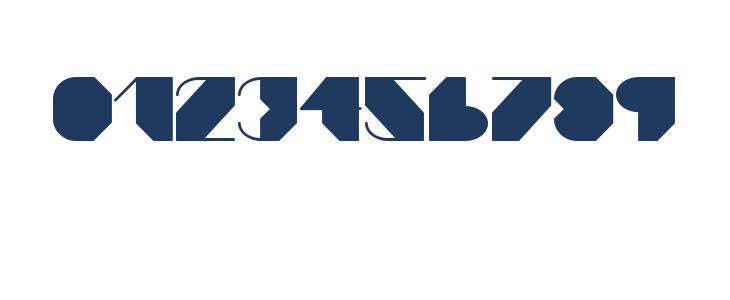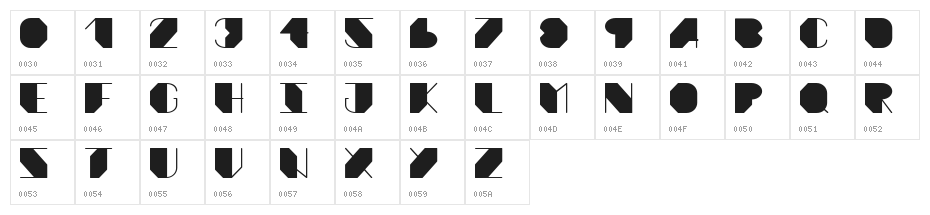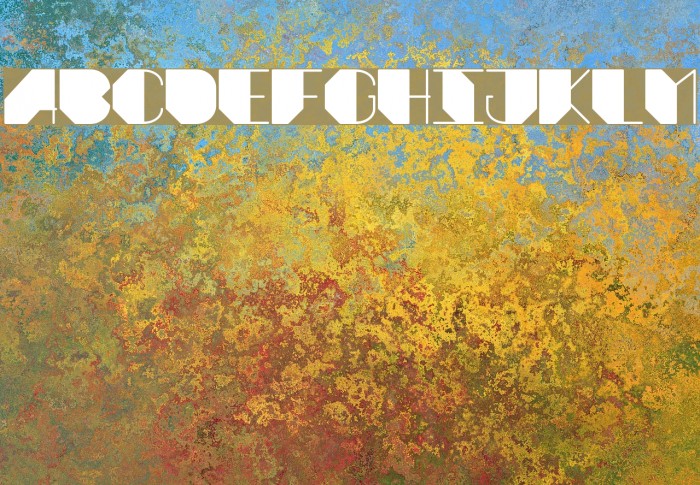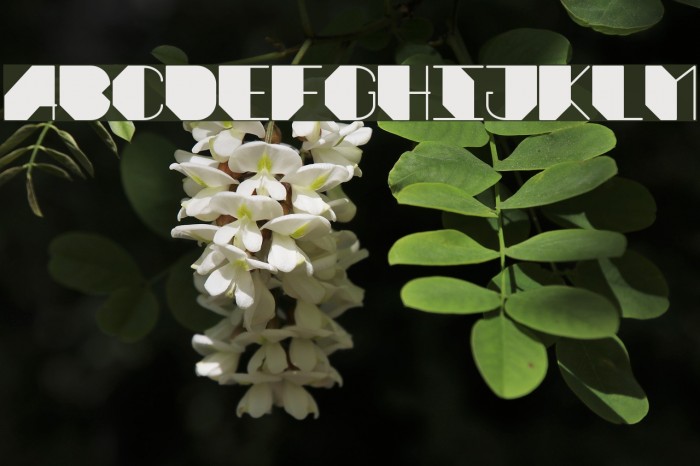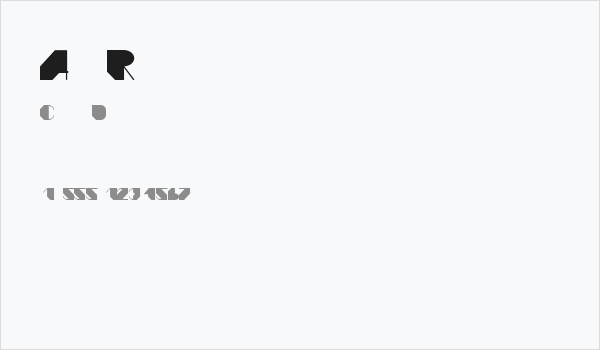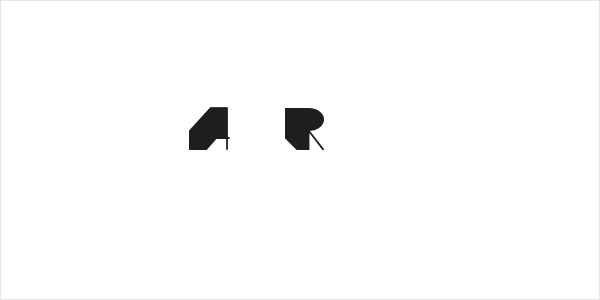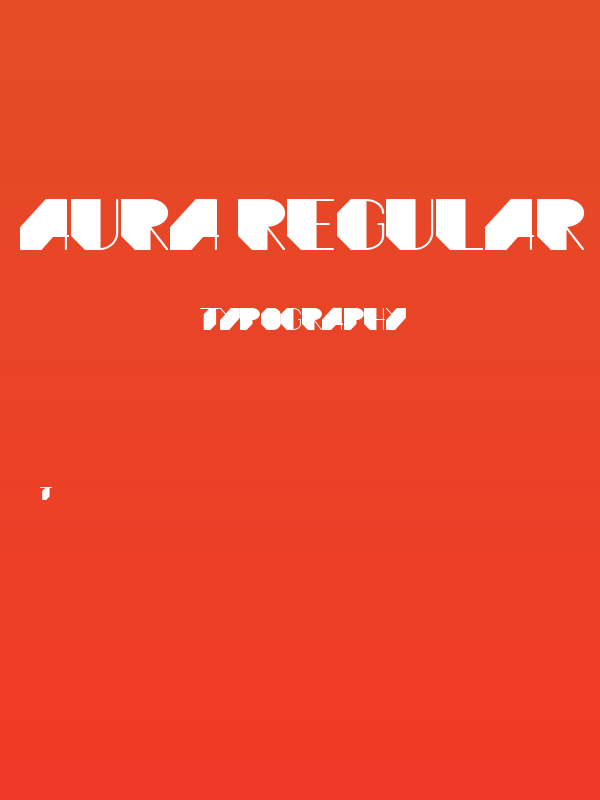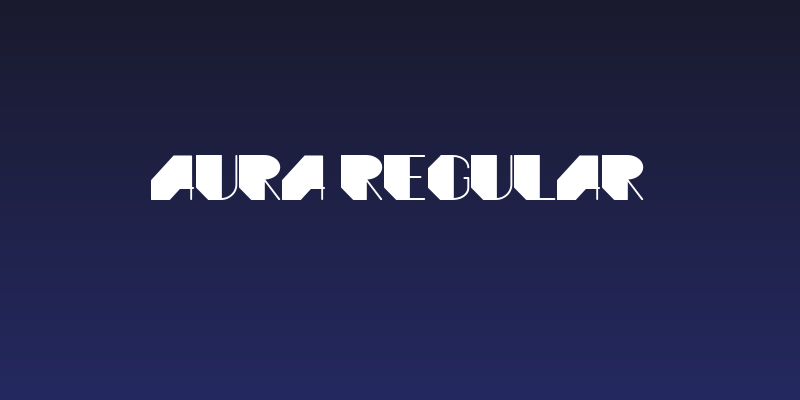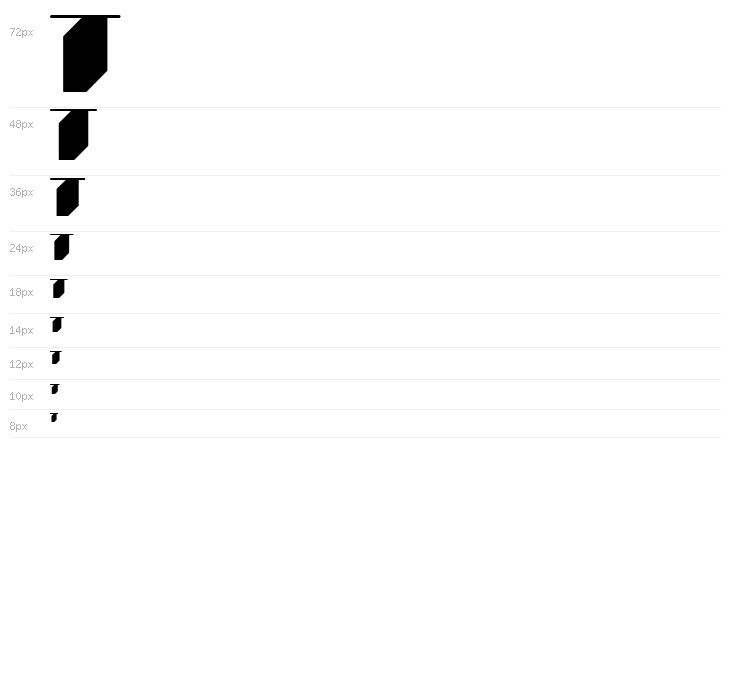
Aura Regular Font
Aura Regular Description
This font features a bold, geometric design with a modern and futuristic aesthetic. The characters are constructed with sharp angles and clean lines, creating a sense of precision and structure. The uppercase letters are particularly striking, with a blocky appearance that emphasizes their strong presence. The numbers follow a similar style, maintaining the geometric theme. This font's unique design makes it stand out, offering a visually impactful option for various creative projects.
| Proposed Projects | Ideal for branding, posters, and digital media where a strong, modern look is desired. |